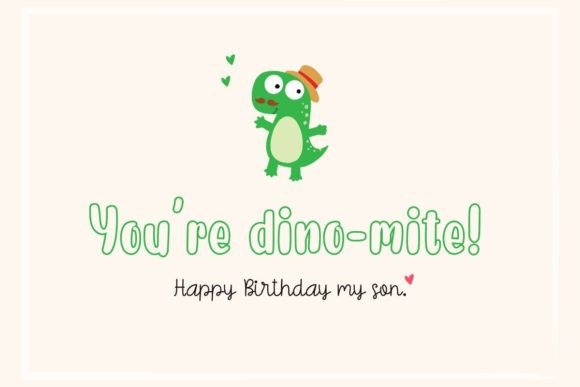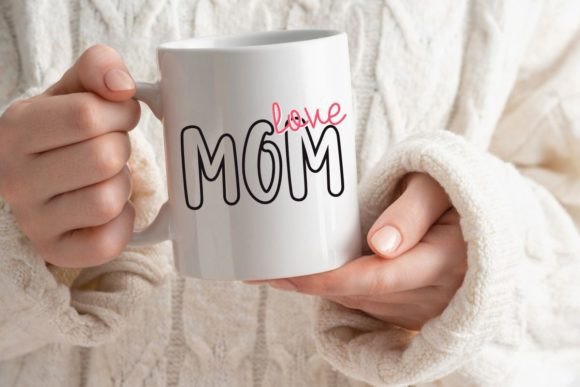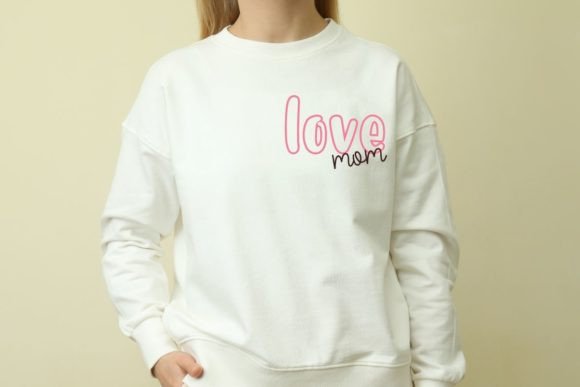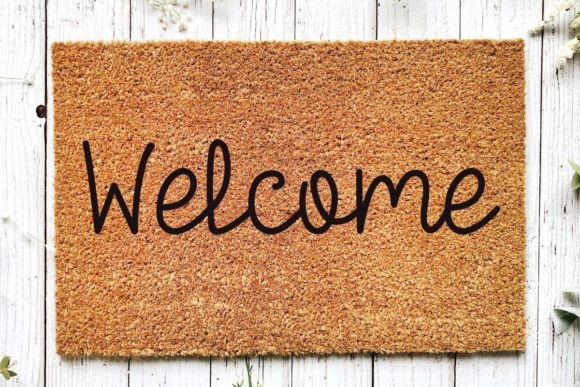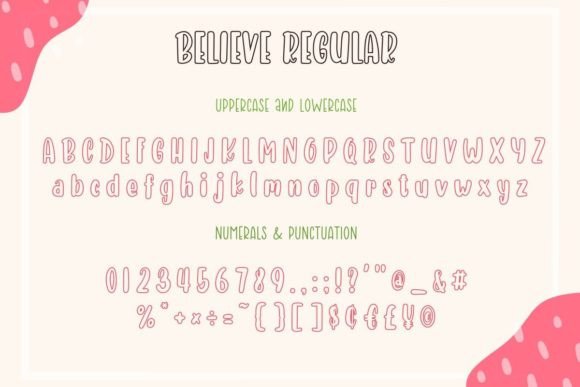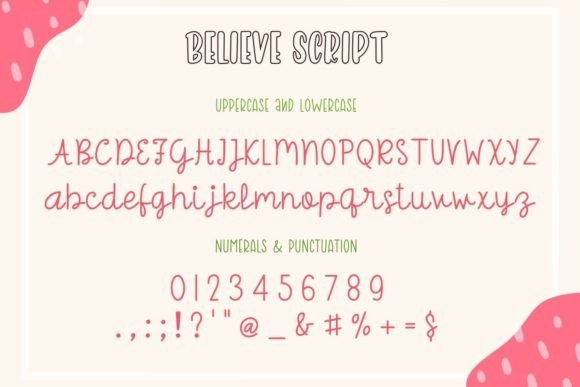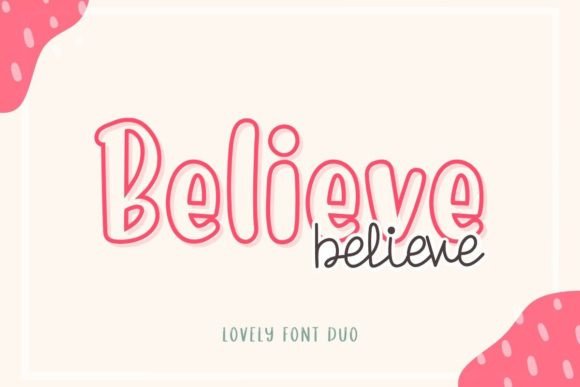
Introducing Believe Font: The Ultimate Handwritten Duo for Creative Projects
Are you on the lookout for a font that can elevate your creative projects to new heights? Look no further than Believe Font, a beautifully crafted handwritten duo that’s perfect for designers, crafters, and anyone looking to add a personal touch to their work. In this article, we’ll dive into the features and benefits of Believe Font, and explore how it can be used to create stunning designs for a wide range of projects.
A Masterfully Designed Font
Believe Font is a meticulously designed handwritten font duo that’s sure to become a true favorite among designers and crafters. Its unique and charming style is perfect for adding a personal touch to any project, from banners and social media posts to mugs, cards, and shirts. The font’s versatility and flexibility make it an excellent choice for anyone looking to create a wide variety of designs that stand out from the crowd.
One of the best things about Believe Font is its incredible versatility. Whether you’re looking to create designs for products, marketing materials, or personal projects, this font duo has got you covered. Here are just a few examples of the many design possibilities available with Believe Font:
- Banners: Create eye-catching banners for events, promotions, or sales with Believe Font’s bold and playful style.
- Social Media Posts: Add a personal touch to your social media posts with Believe Font’s charming and whimsical style.
- Mugs and Water Bottles: Design personalized mugs and water bottles with Believe Font’s fun and quirky style.
- Cards and Stationery: Create beautiful and unique cards and stationery with Believe Font’s elegant and refined style.
- Shirts and Apparel: Design custom shirts and apparel with Believe Font’s bold and playful style.
Why Choose Believe Font?
So why choose Believe Font over other fonts on the market? Here are just a few reasons why this font duo stands out:
- Unique and Charming Style: Believe Font’s unique and charming style is sure to capture the attention of your audience and set your designs apart from the crowd.
- High-Quality Design: Believe Font is meticulously designed to ensure that it looks great in any size or format.
- Versatile: Believe Font can be used for a wide range of projects, from personal designs to commercial projects.
Tips for Using Believe Font
Here are a few tips for getting the most out of Believe Font:
- Experiment with Different Sizes: Believe Font looks great in a variety of sizes, so don’t be afraid to experiment and find the perfect size for your project.
- Pair with Other Fonts: Believe Font pairs well with a variety of other fonts, so feel free to get creative and experiment with different font combinations.
- Use for Headings and Body Text: Believe Font is perfect for both headings and body text, making it a great choice for a wide range of projects.
In conclusion, Believe Font is a beautifully crafted handwritten font duo that’s perfect for designers, crafters, and anyone looking to add a personal touch to their work. With its unique and charming style, high-quality design, and versatility, Believe Font is sure to become a true favorite among creative professionals. Whether you’re looking to create designs for products, marketing materials, or personal projects, Believe Font is an excellent choice. So why wait? Download Believe Font today and start bringing your creative ideas to life!